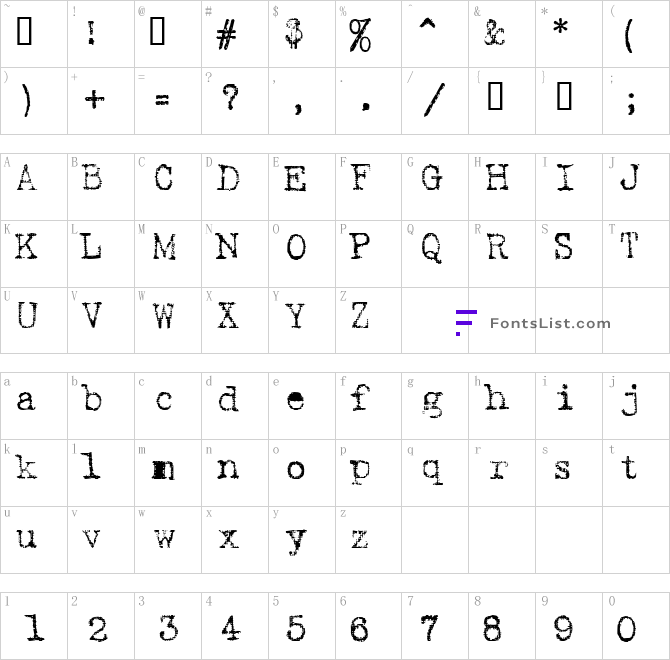
- Font Name:Armenschrift
Armenschrift.ttf is a very beautiful artistic font, Armenschrift.ttf is widely used in the design and printing of various books and pictures,Armenschrift.ttf has a strong visual impact,Armenschrift.ttf is a commonly used font in newspapers, magazines and books, and is used in posters, e-commerce Poster design, store design, logo design, font design and other fields.Armenschrift.